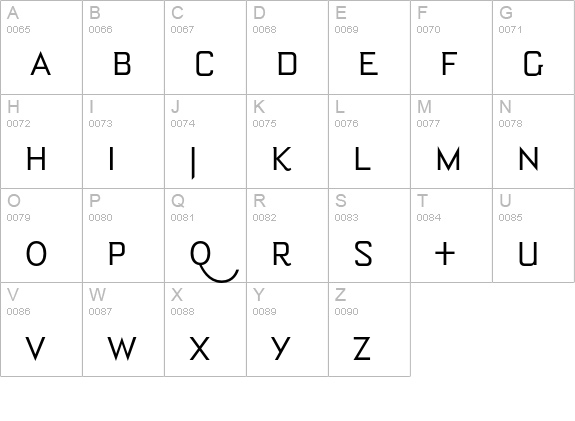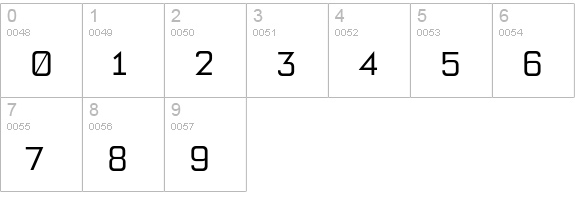
Bourgeois BookAlt Font Details
Bourgeois BookAlt font exudes sophistication and elegance with its sleek lines and classic appeal. This versatile typeface is perfect for conveying a sense of refinement in any design project. Its tall, slender letterforms add a touch of modernity while maintaining a timeless quality that is sure to impress. What sets Bourgeois BookAlt font apart is not only its striking appearance, but also the fact that it is available for free download at FontsMarket.com. This means that you can elevate your designs without breaking the bank, making it a valuable addition to any designer's toolkit. Whether you're creating invitations, branding materials, or editorial layouts, Bourgeois BookAlt font offers a touch of luxury that will elevate your work to new heights. Download it for free today and see the difference it can make in your projects.